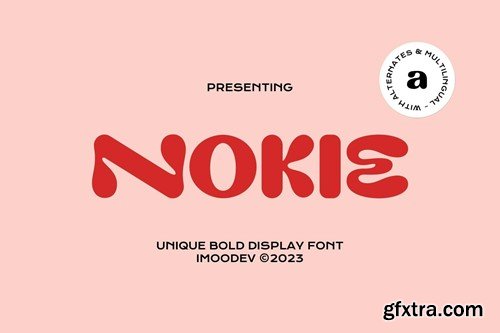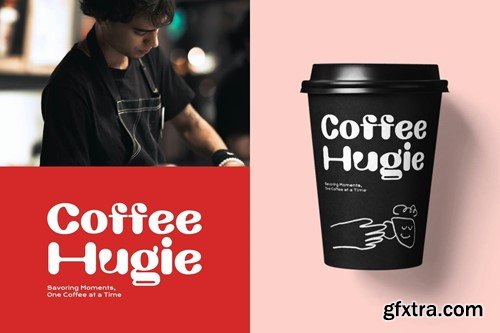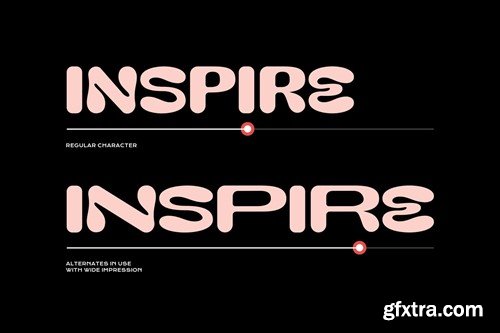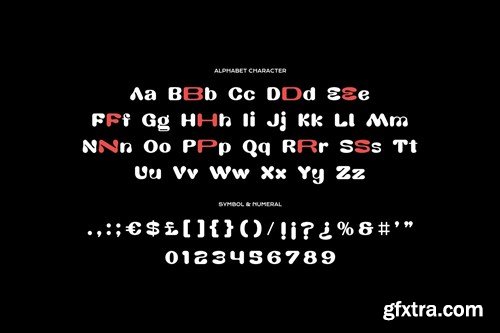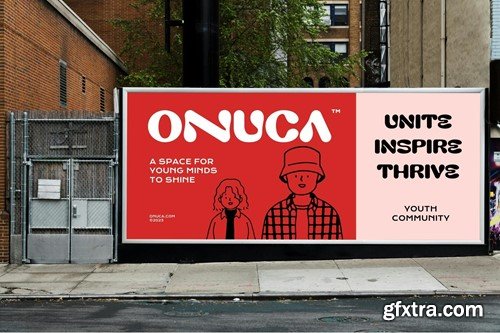
诺基亚 - 独特Bold显示字体 6EAHC5M
Nokie - Unique Bold Display Font
Nokie is a unique bold display font that has smooth curves and a visual style a can embodies charm and elegance in every lettering, making your work look stunning and attractive. A versatile font that works in both uppercase and lowercase sizes, suitable for a wide variety of projects such as a display font for headings, logo fonts, invitations, branding, book covers, magazine layouts, card, product packaging, product mockup, mugs, posters, labels, editorials, art deco, and any type of advertising purpose. Features: Thank you for purchasing! Good luck designing! Regards, Imoodev